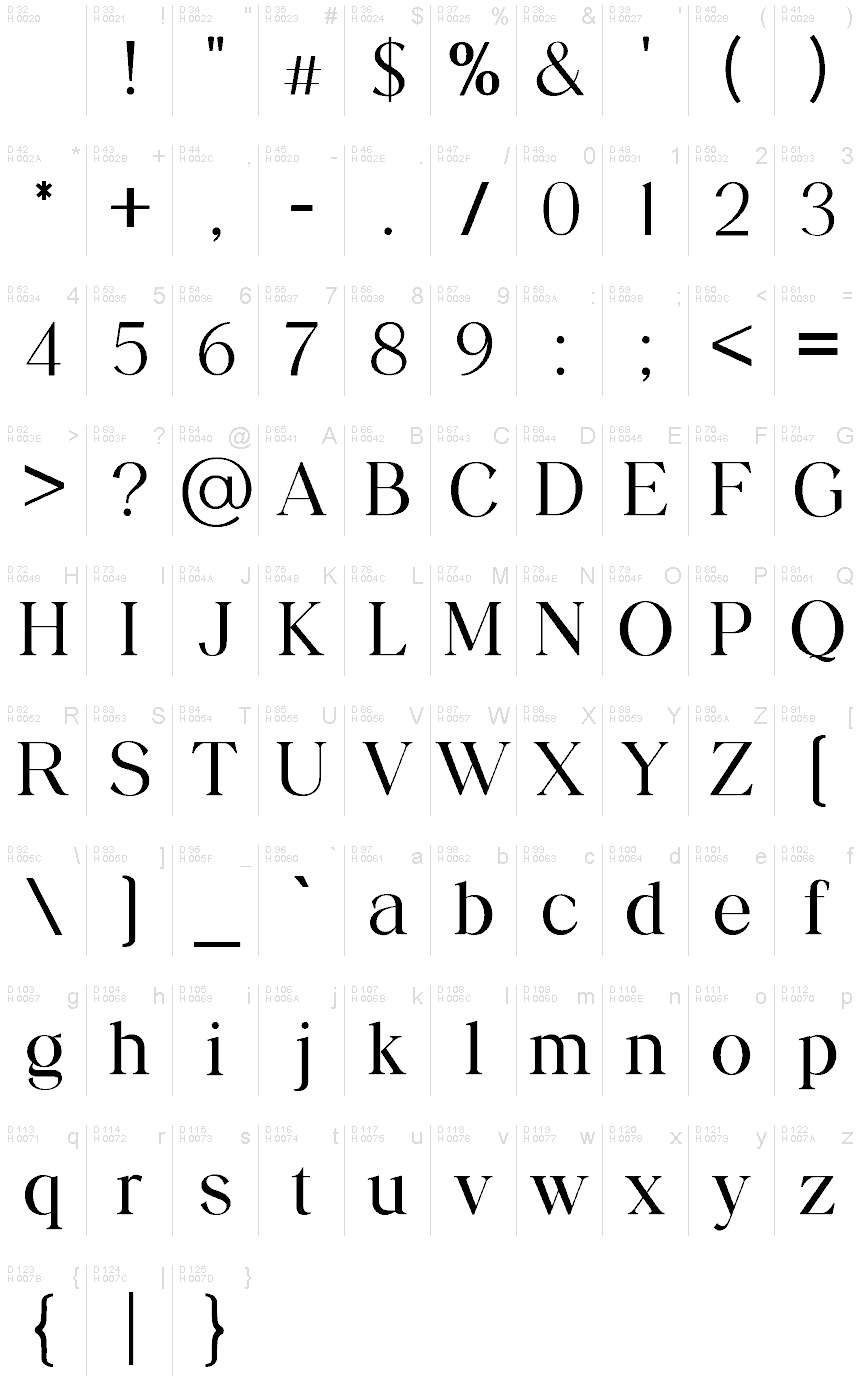
Sarcolenta Regular
Sarcolenta font by UI Creative is a marvelously elegant and sophisticated classic serif font lovely for display use. This free serif font manifests closely-knit lowercase letters with unequal yet classy sharp and curved terminals. Mainly, this typeface has a luxurious feel that brings prominence to whatever project it was featured in.
Possible applications vary widely from branding, advertising, packaging, book covers, wedding invitations, greeting cards, catalogs and magazines, historical exhibitions posters or flyers, men’s care products designs such as perfumes or grooming kits.